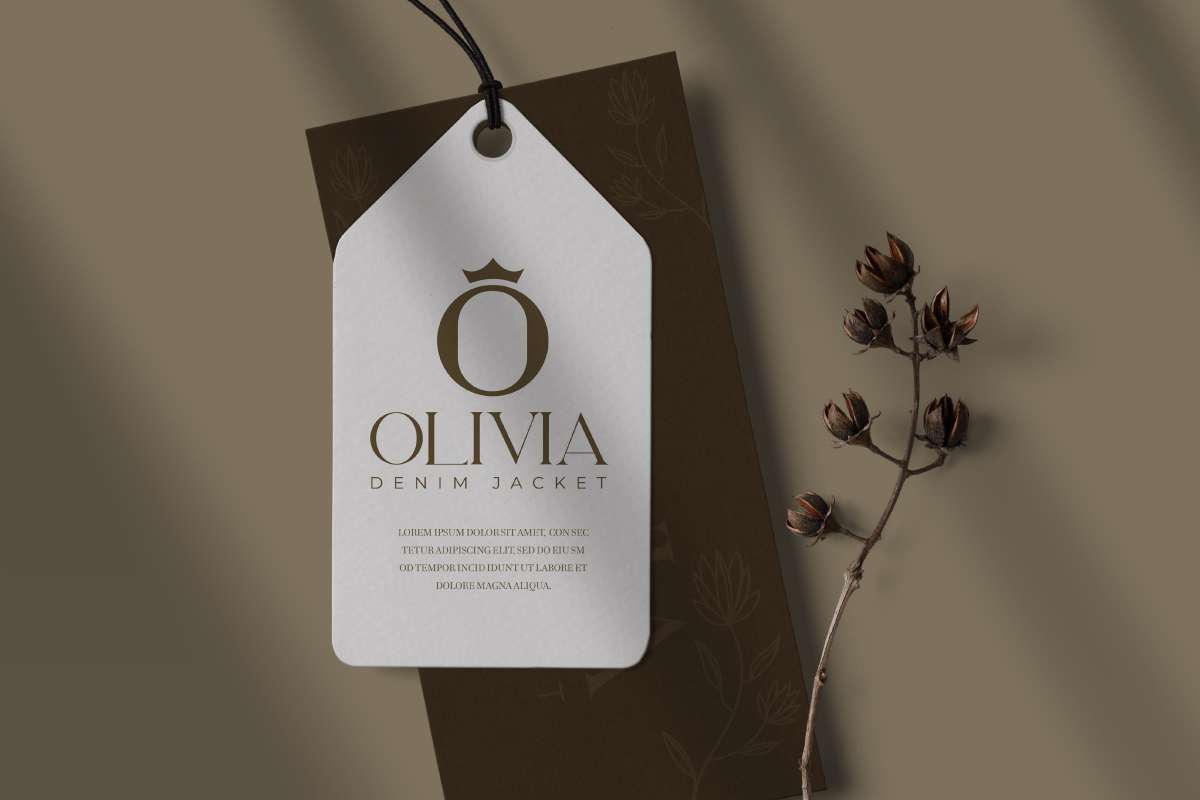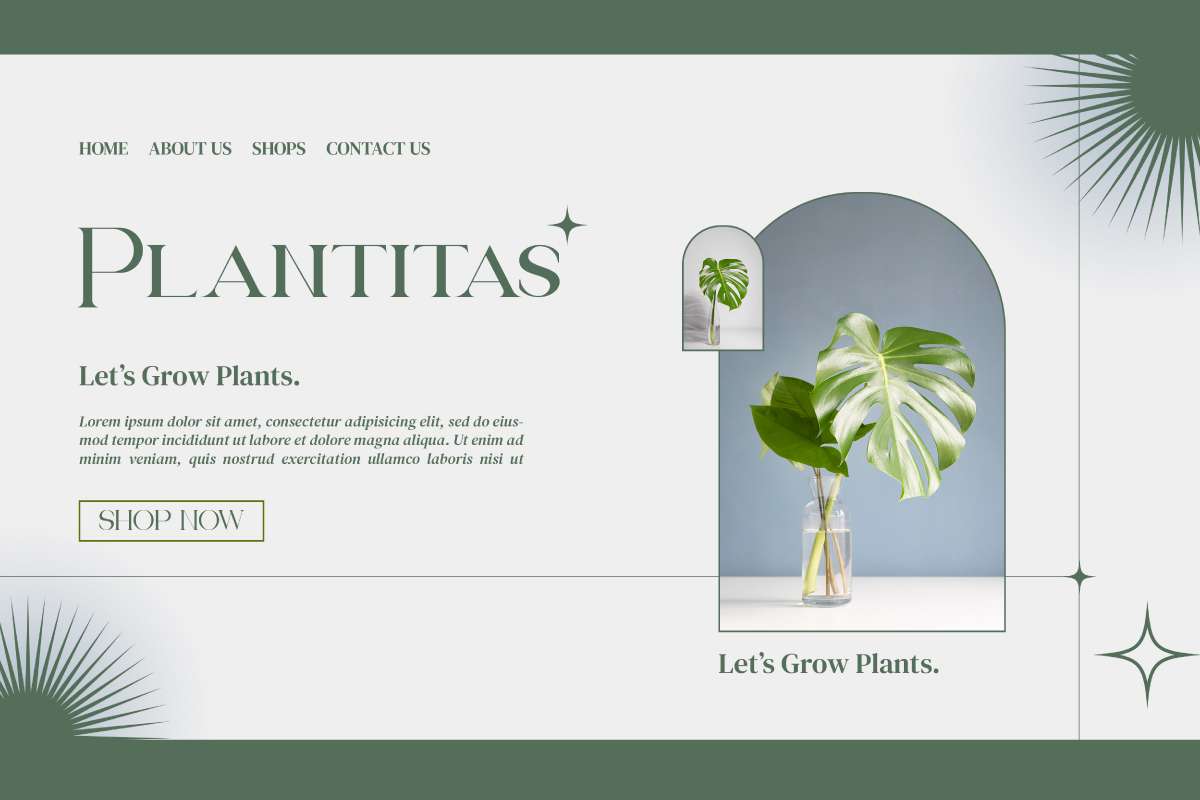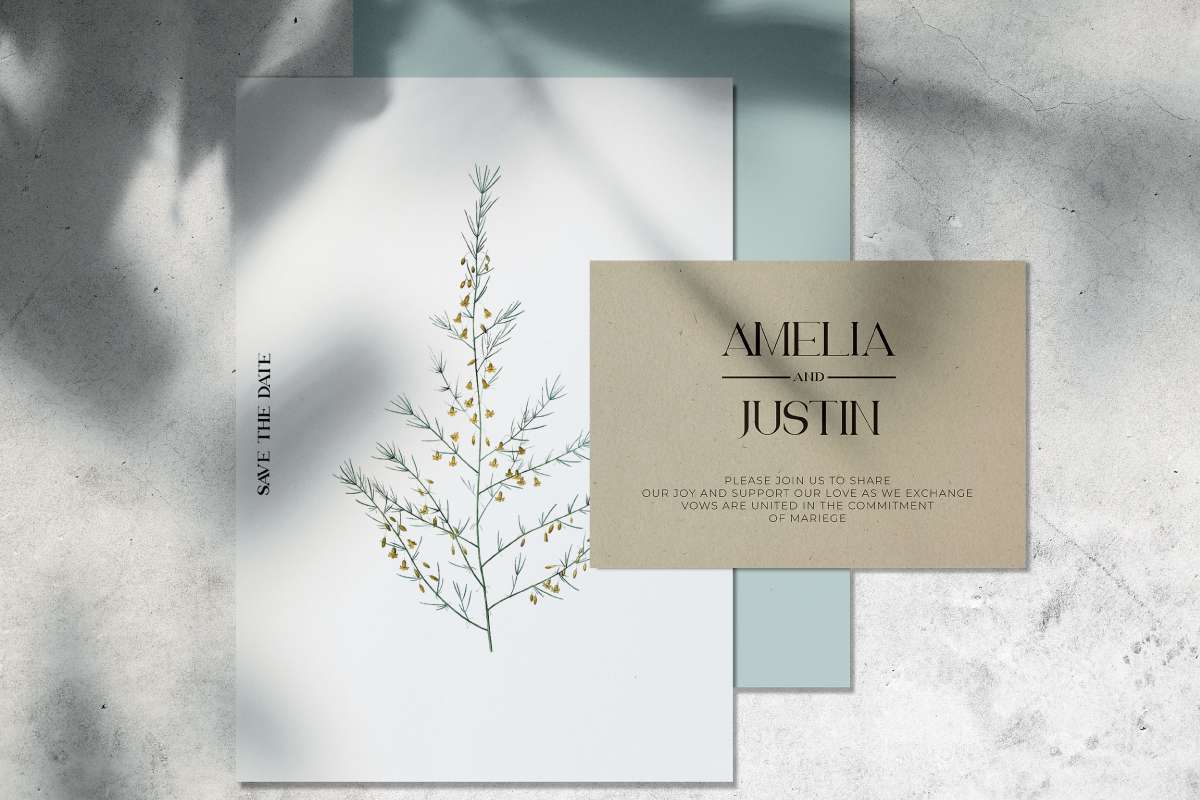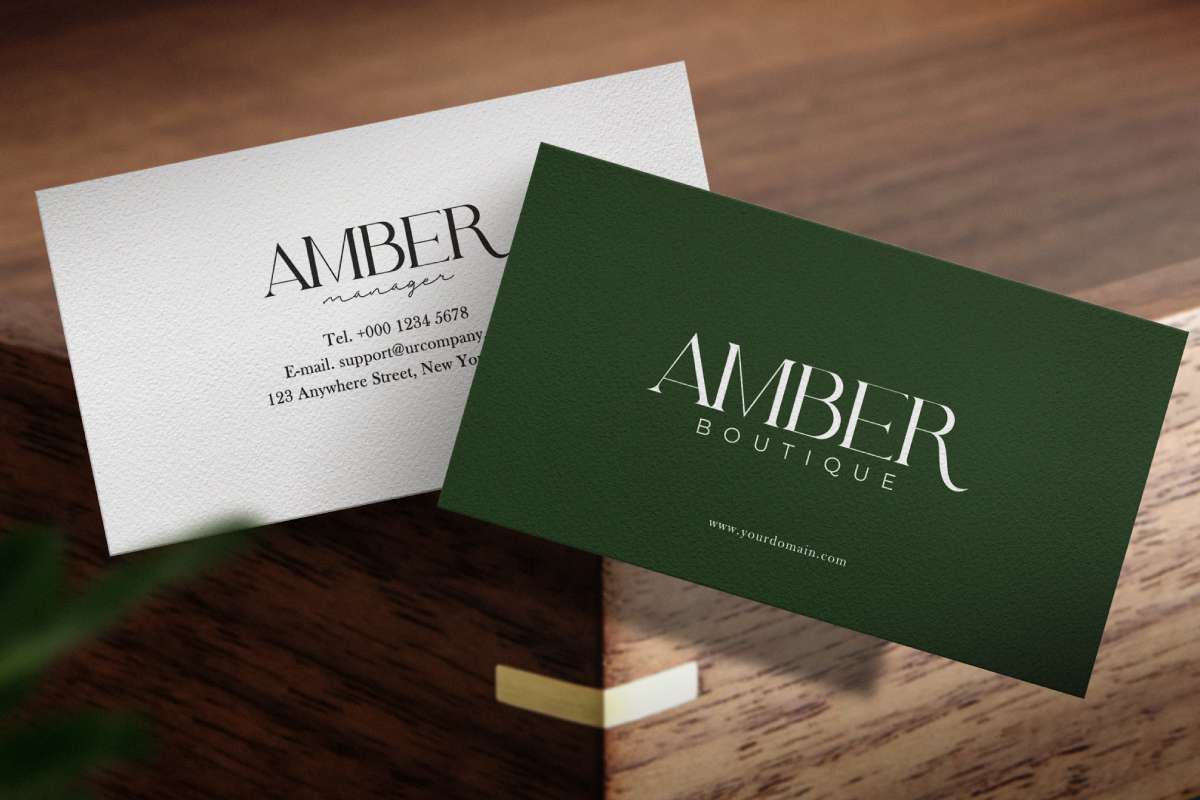
Chamberlain Font
Chamberlain Font is a minimalist display serif font family, designed by Rais Project. The font has minimal style that great for casual, Beauty, Fashion, Magazine, Wedding etc